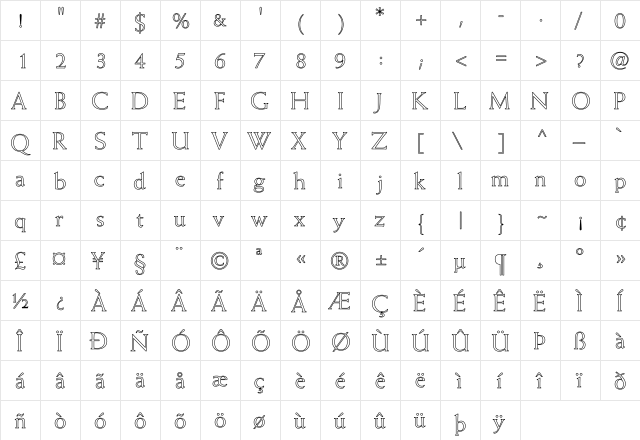
Weiss Hollow Regular
Design Context for Weiss Hollow Typeface
Weiss Hollow is a composed and adaptable typeface that performs quietly and consistently across a wide range of design contexts.